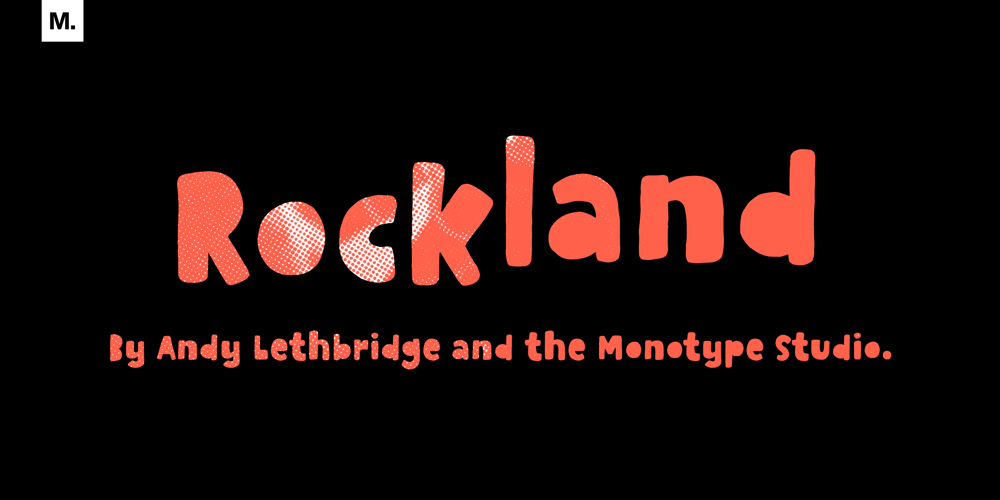
Rockland
Rockland font
Rockland Font Family was designed by Andrew Lethbridge and published by Monotype. Rockland contains 1 styles and family package options. This is an original, confident and cheeky little font; characterised by its boldness and dense letterforms, which boast a solid texture and distinctive lack of counters. Drawn with a marker pen, the bounciness of Rockland counteracts its solidity to make for a friendly aesthetic that’s as confident as it is playful.